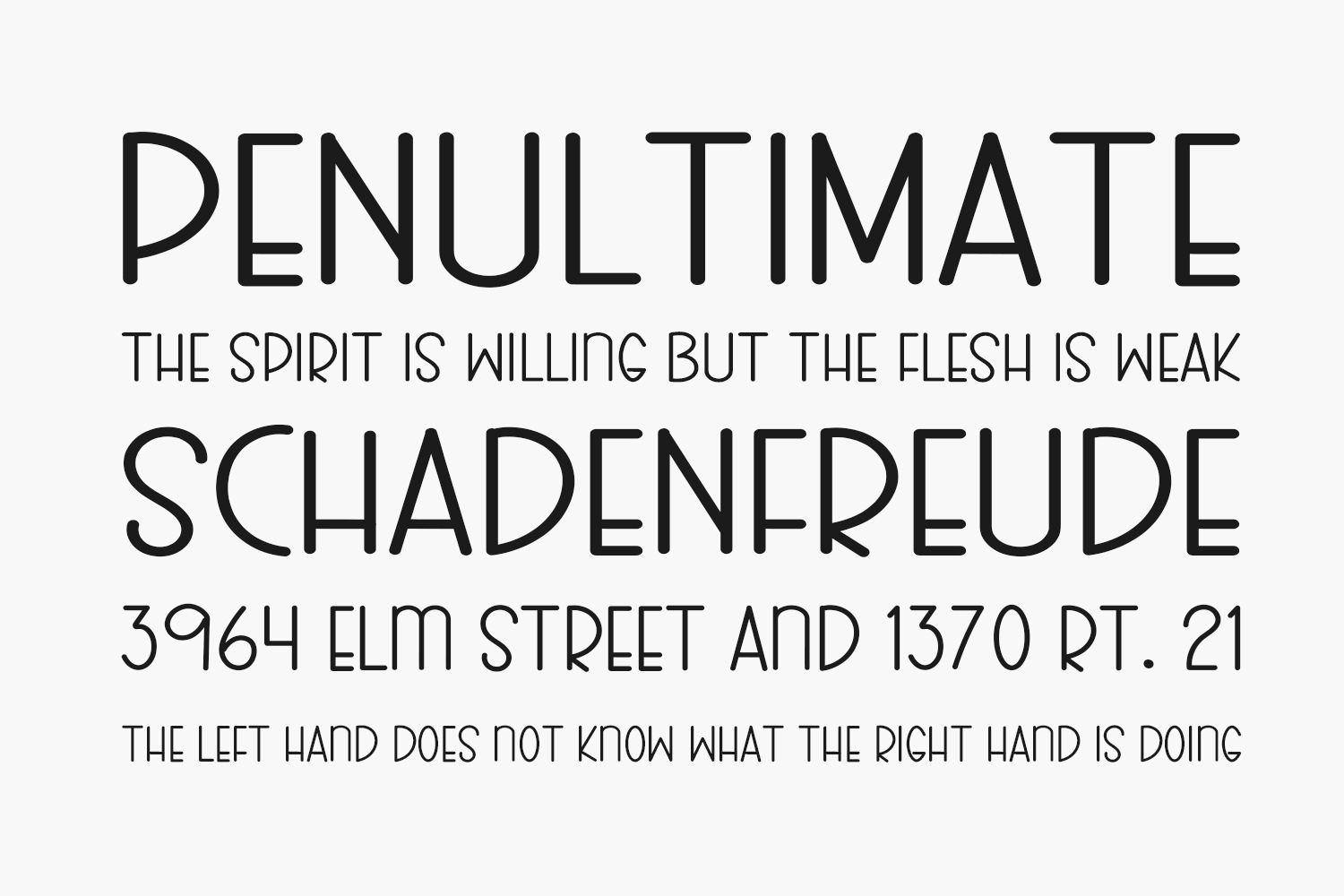
Flower Better Free Font is an attractive sans serif font that boasts elegant and captivating characters that appear to gracefully move along the baseline. Incorporate it with confidence into your projects, and observe how it brings them to life.